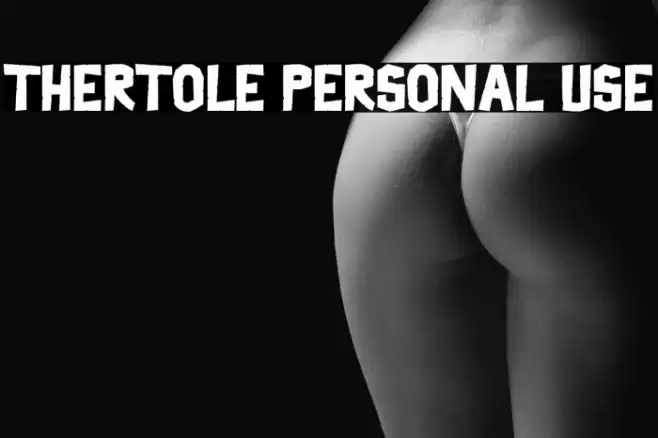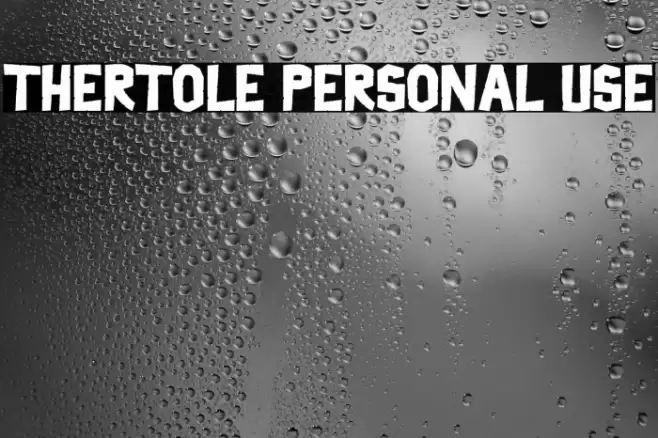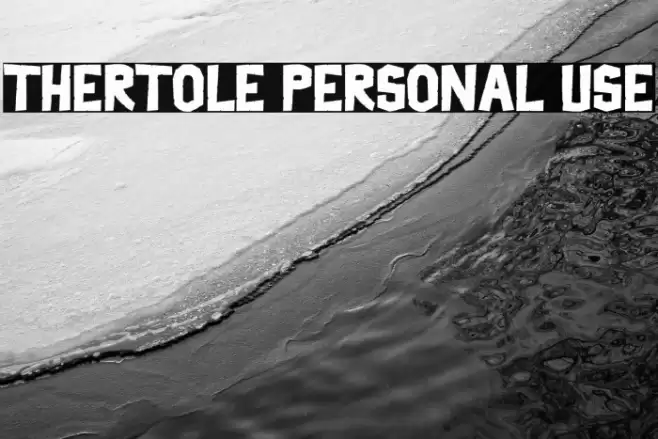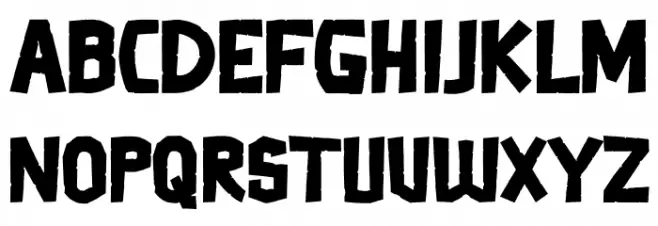
Thertole Personal Use Font
Thertole Personal Use Description
This font features a bold and rugged design with a hand-crafted appearance. The characters are blocky and uneven, giving it a raw and edgy feel. The uppercase letters are prominent and assertive, while the lowercase letters maintain the same boldness, creating a cohesive look. The numbers and special characters follow the same style, ensuring consistency across all elements. The font's unique style makes it stand out, perfect for projects that require a strong and distinctive visual impact.
A bold, rugged font with a hand-crafted, edgy appearance from Cartoon fonts.
- Proposed Projects: Ideal for posters, logos, branding, and any design needing a bold, impactful look.